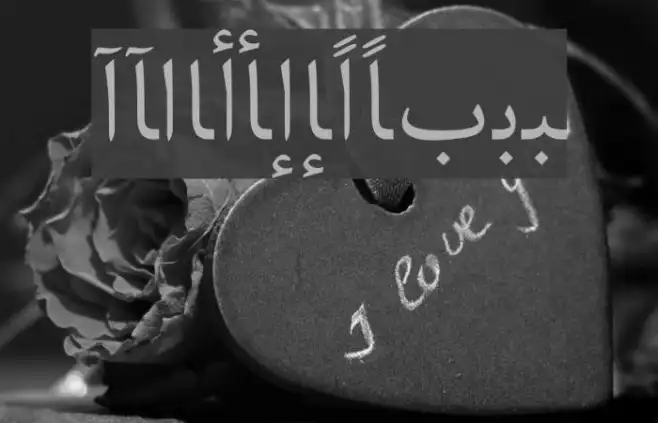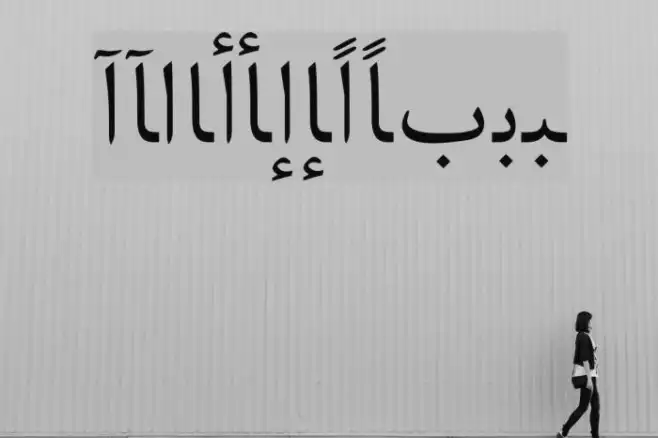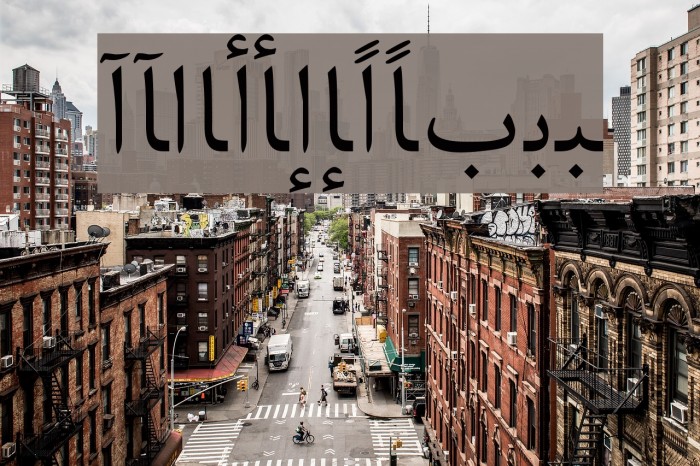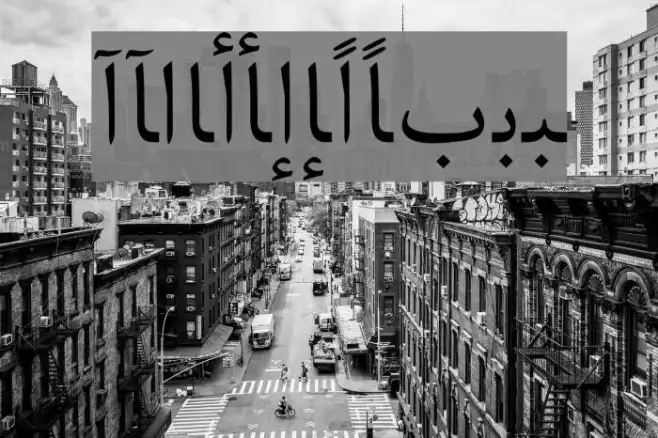
Arabic Web Font
Arabic Web Description
This font showcases a traditional Arabic script with a modern twist, featuring smooth curves and elegant strokes. The characters are well-defined, with a harmonious balance between thick and thin lines, giving it a refined and sophisticated appearance. The numerals are distinct and complement the script style, maintaining the overall aesthetic. The special characters are designed to blend seamlessly with the rest of the font, ensuring consistency throughout. This font is versatile, suitable for both digital and print media, and can be used to convey a sense of tradition and modernity simultaneously.
| Use Case | Headlines, Body text, Logos |
| Proposed Projects | Ideal for branding, editorial design, signage, and digital content that requires a touch of elegance and cultural authenticity. |